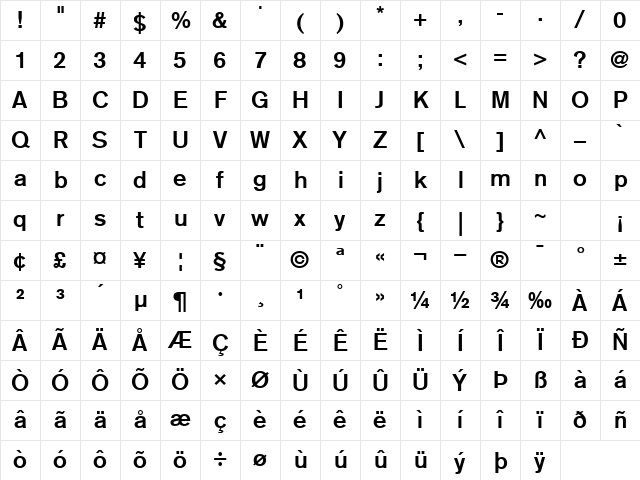
AkzidenzGroteskCE Bold
AkzidenzGroteskCE Family
Complete AkzidenzGroteskCE Bold glyph index. Displaying only characters natively supported by AkzidenzGroteskCE Bold font.
Design Context for AkzidenzGroteskCE
AkzidenzGroteskCE takes a clean, functional approach - its unadorned letterforms prioritise legibility and work reliably across screen and print environments. Its bold stroke weight gives it real presence on the page.
Font Pairing: Use AkzidenzGroteskCE for headlines alongside a lighter-weight sans or serif for body copy to establish clear visual hierarchy.
Pro Tip: Use AkzidenzGroteskCE for UI labels, navigation, and short-form body copy where clean legibility is the priority.